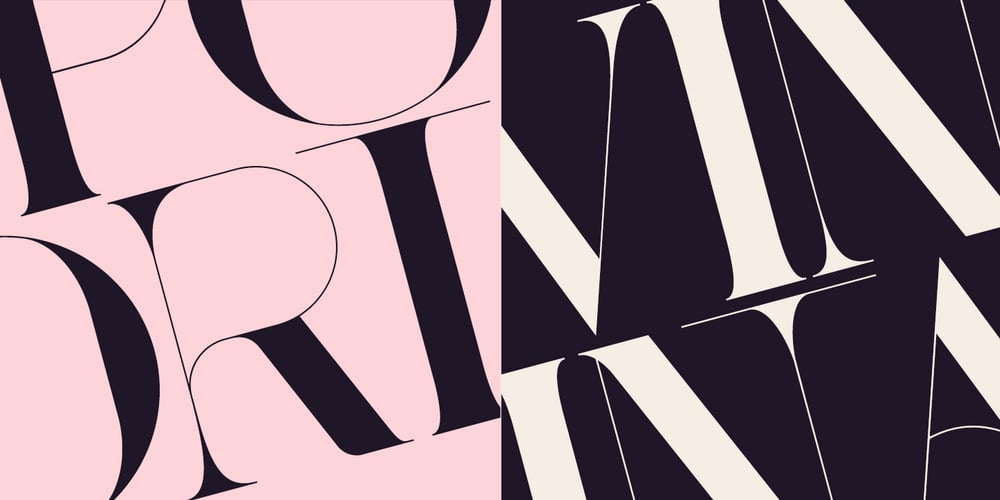
Port Vintage Font Family was designed by João Oliveira and published by Onrepeat. Port Vintage contains 10 styles and family package options. Guided tour available here. Port Vintage is a new typeface expanded upon the original Port typeface, released in 2013, and being an experimental Didone typeface with a modern twist, inspired by the well known forms of typography masters such as Bodoni and Didot and the exuberance and elegance of calligraphy typefaces. A lot of changes were made, the whole typeface is now softer and has less rough edges, the time it took to mature made it possible to achieve an entirelly new and distinct flavour from the original Port, giving away the rough edges from Port and giving place to the soft transitions and curved connections between the stems and serifs of Port Vintage. Port Vintage melts the straight lines and strong contrasts of the Didone typefaces with the elegant lines of calligraphy in a geometric way, resulting in exuberant characters with geometric swashes that can be combined in countless ways. The result of this experiment is Port Vintage, an unique and rich display typeface meant to be used on big sizes and it’s main perk is the amount of alternative characters it features. Port Vintage is Open-Type programmed and includes hundreds of alternates, from swashes to titling alternates, ligatures and stylistic sets with each character having a thin version of itself, giving complete freedom to all your creative needs. Port Vintage is available in 10 different styles: Port Vintage Regular, being the base version and featuring the whole base character set; Port Vintage Regular Decorated, featuring richer forms and containing more ornamentated and more extravagant characters; Port Vintage Medium and Port Vintage Medium Decorated, designed for the occasions you need a bit more thickness and the decoration variants: Port Vintage Ornaments, containing a wide set of elements meant for the creation of fillets, vignettes and fleurons, resulting in an almost infinite number of possible combinations to embellish your designs and Port Vintage Words, a set of some of the most common words used in English, Spanish, French, German, Italian and Portuguese. All styles, except Port Vintage Ornaments and Port Vintage Words, include italic styles. For a better understanding of all the uses of Port Vintage and the full character list the reading of the manual is recommended.